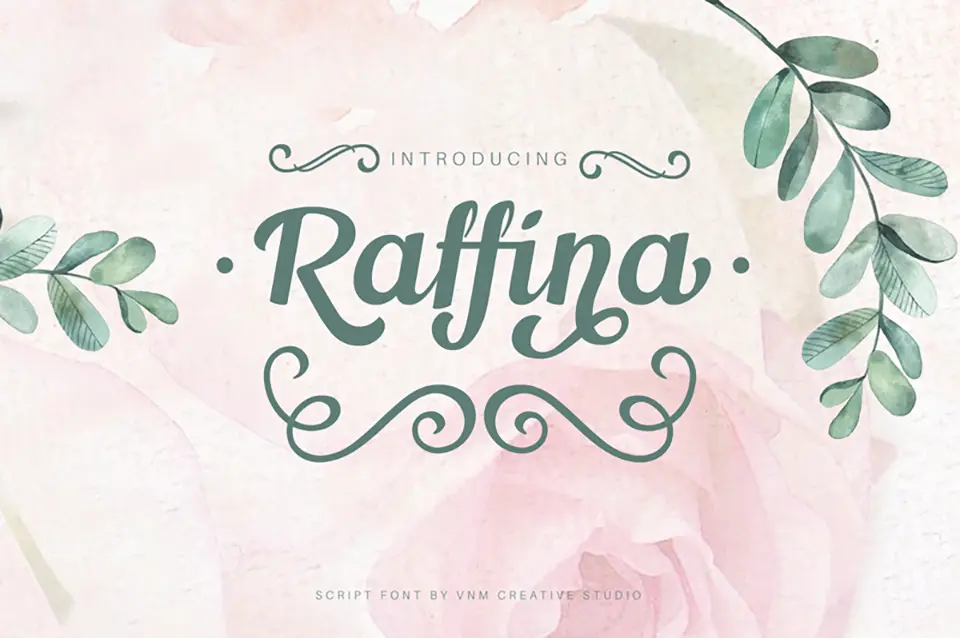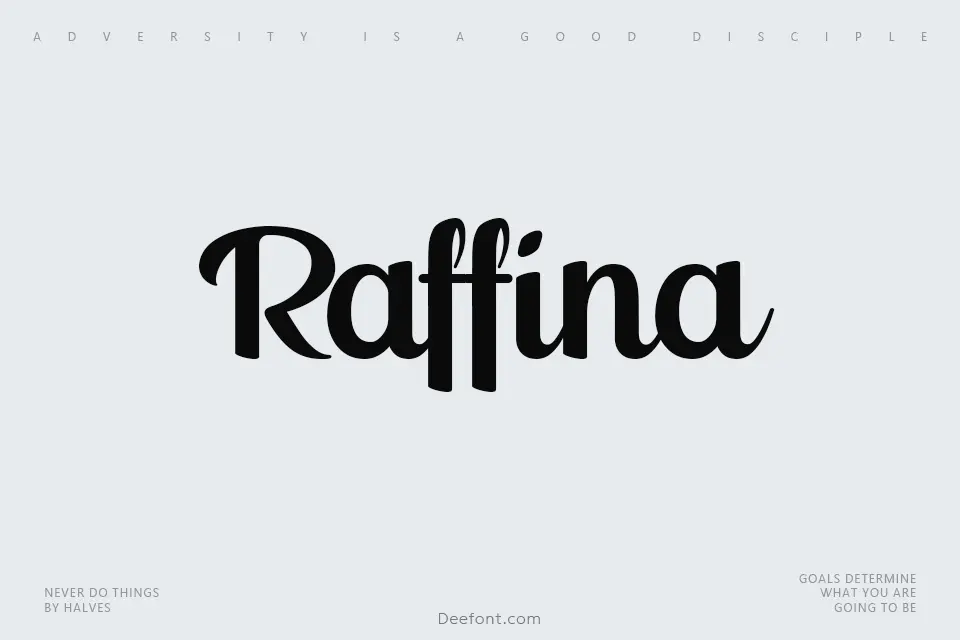
Raffina Font
Raffina Font is a bold and beautiful script font that brings a distinctive and unique character to creative projects. This elegant typeface stands out with its one-of-a-kind feel, designed to add a joyful and vibrant spark to any design work. Created by VNM Creative Studio, Raffina combines artistic flair with readability, making it suitable for various creative applications. The font family includes multiple files and supports 12 different languages, offering versatility for different design needs. Its bold yet graceful strokes make it an excellent choice for projects that require both personality and sophistication.